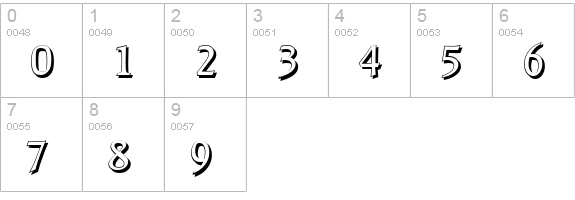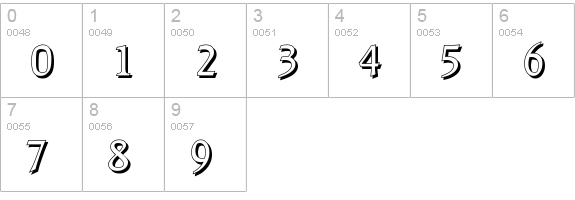
RaleighShadow-Regular is the standard, neutral variant in the RaleighShadow typeface family \xE2\x80\x94 well suited to general body text, paragraphs, and standard typographic work.
RaleighShadow-Regular is a stunning and versatile display font that exudes elegance and sophistication. With its unique shadowed effect, this font is perfect for adding a touch of drama to your designs. Whether you're creating posters, logos, or invitations, RaleighShadow-Regular will make your text stand out with its bold yet refined appearance. Best of all, RaleighShadow-Regular is available for free download at FontsMarket.com. This means you can easily access this stylish font and use it in your projects without any additional cost. Don't miss out on the opportunity to enhance your designs with the timeless charm of RaleighShadow-Regular. Download it now and elevate your creative work to the next level.